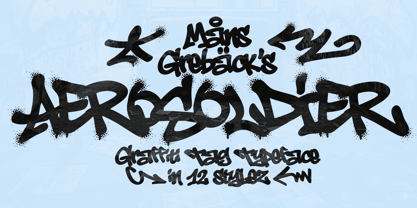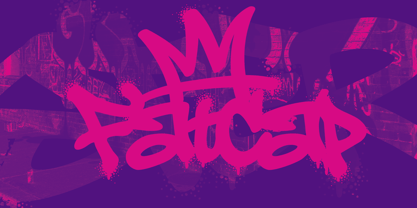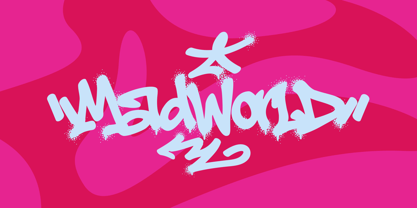
Aerosoldier
by Mans Greback
The Aerosoldier Font Family was designed by Måns Grebäck and published by Mans Greback. Aerosoldier contains 12 styles and family package options. More about this family
Aerosoldier is a bold and raw graffiti tag typeface, bursting with energy and streetwise attitude. Designed by Mans Greback, it mimics the rebellious rhythm of spray-painted tags and urban expression. With twelve distinct styles—ranging from clean to drippy and sprayed—Aerosoldier captures the layered textures and intensity of graffiti culture. Each letter feels hand-thrown, like it's just been laid down on a wall or train car under cover of night. The letterforms are dynamic and jagged, marked by spontaneous motion and precise chaos, perfect for capturing the voice of the street. The font is built with advanced functionality and guaranteed top-notch quality, containing stylistic and contextual alternates, ligatures and more automatic and manual features; all to give you full control and customizability. It has extensive lingual support, covering all Latin-based languages, from North Europa to South Africa, from America to South-East Asia. It contains all characters and symbols you'll ever need, including all punctuation and numbers. Created by Mans Greback, a type designer known for blending artistic freedom with technical precision, Aerosoldier is the result of a passion for urban lettering and professional font craft.